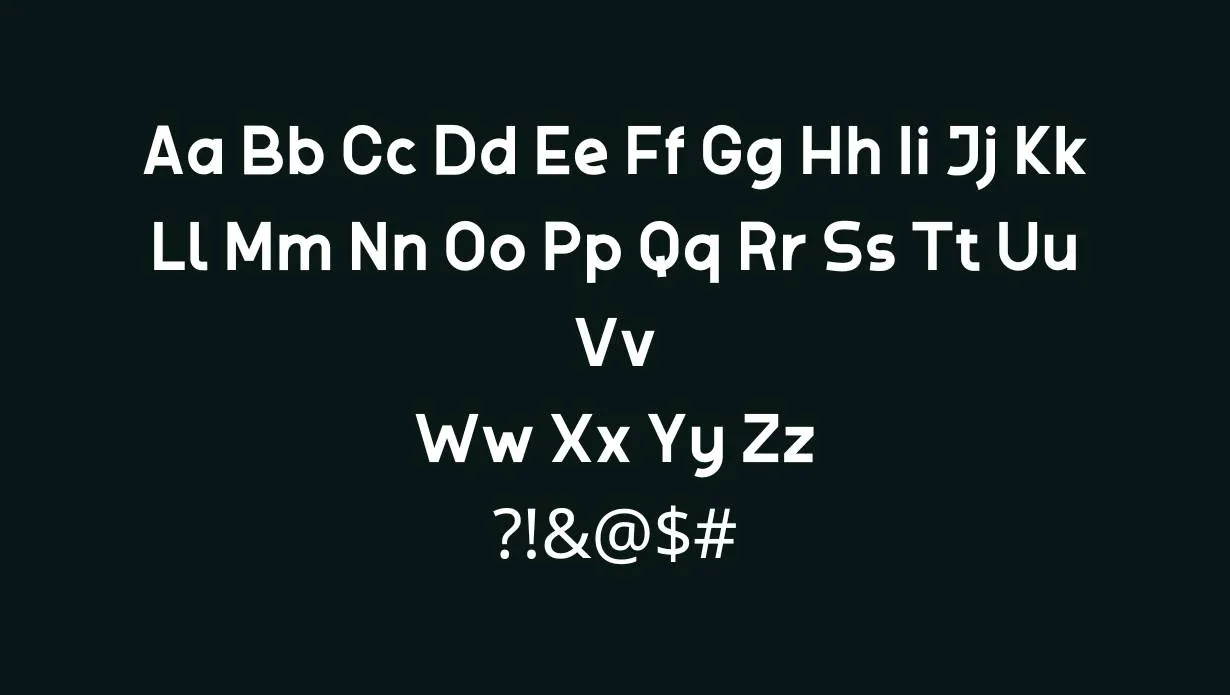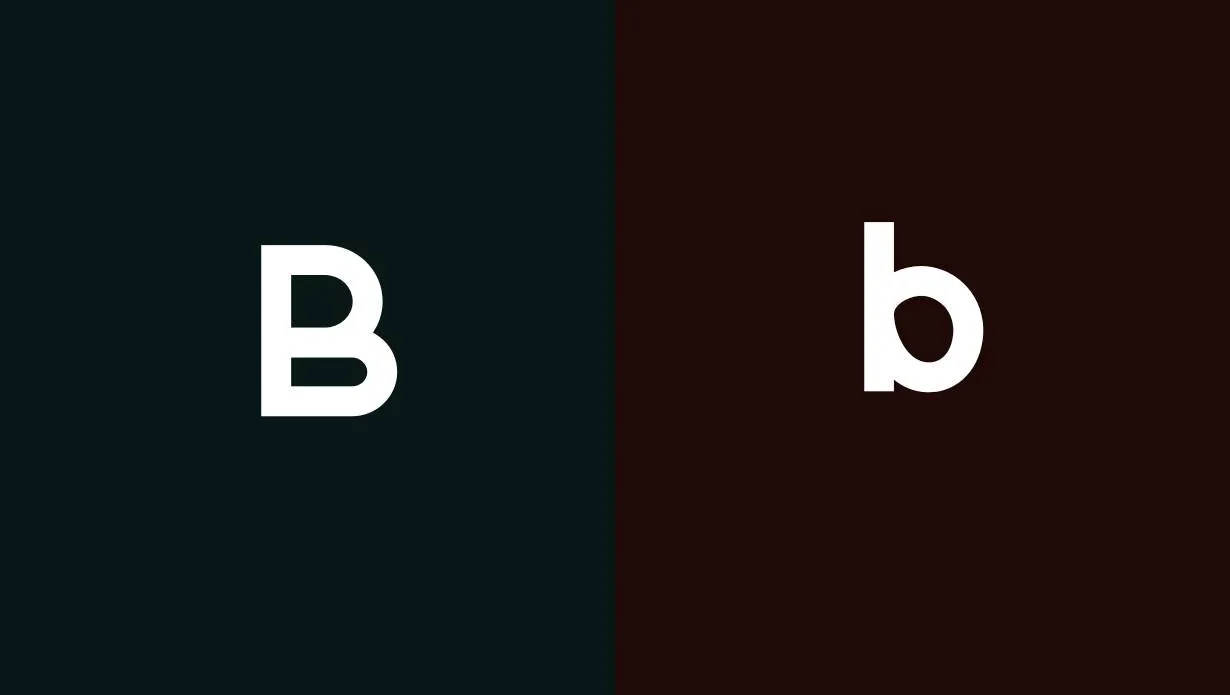
Introducing Bosan Font, a brand new Sans-Serif font that was created by Rozi, it has its own clean, soft, and smooth appearance that makes it a versatile and durable typeface.
This typeface has an elegant and relaxed presence that makes it perfect for both title and body text. It can be used in macOS and iOS.
Bosan Font Family